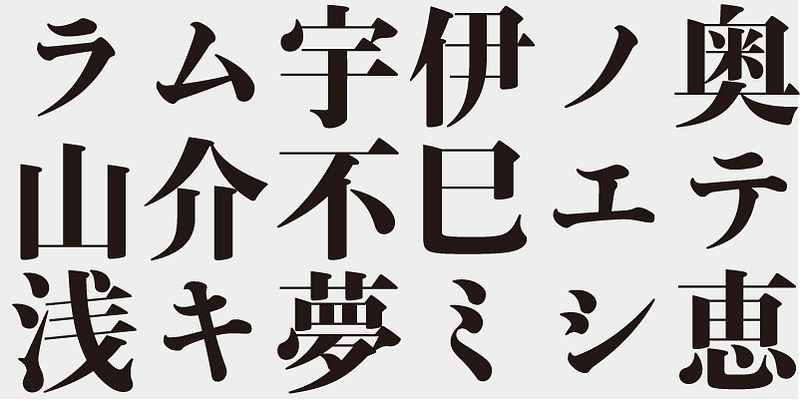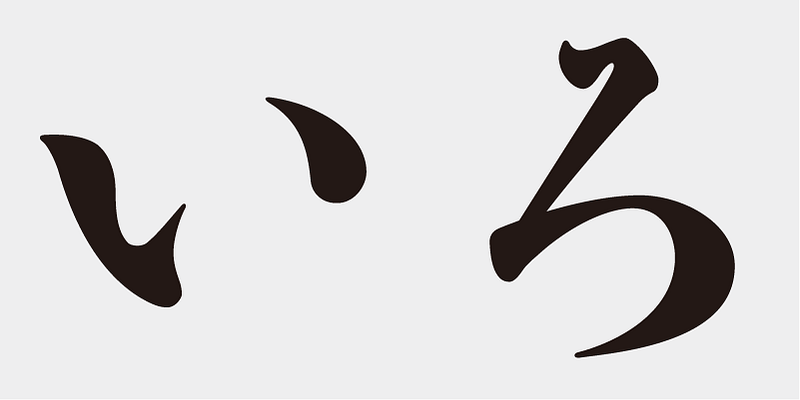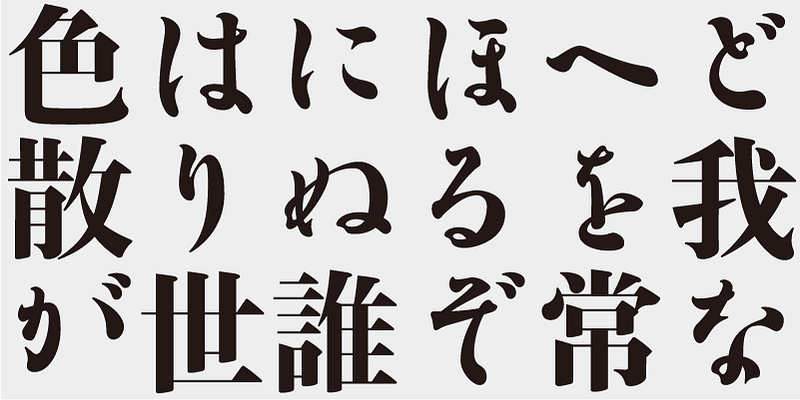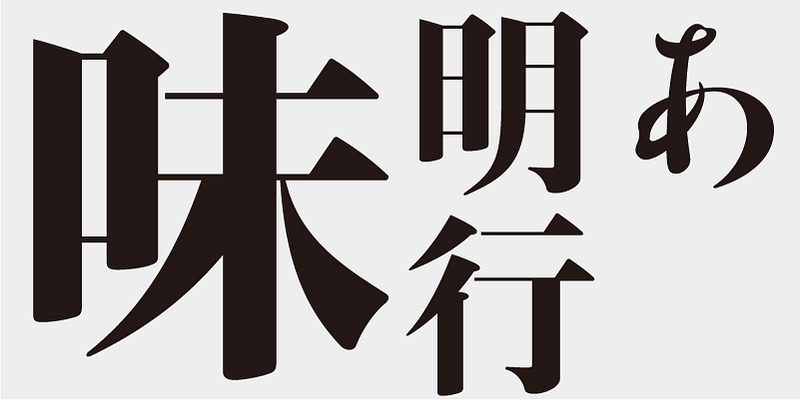
Although Ajimin has the flavor of hot metal type, it is not intended to be a revival, but a new typeface for display purposes. Like Bodoni, its vertical strokes are clear and heavy and its horizontal strokes are precise and thin. Its elements possess strength and stability.
Ajimin Modern’s elements are more sharply designed than those of Ajimin – the start and finish of vertical strokes are lowered for increased sharpness, and the horizontal strokes are cut vertically at the start and are thinner with a uniform width. Ajimin Modern is a sharp and elegant Mincho-style typeface.
This typeface is designed to be used in larger type sizes (for posters, for example), although it’s legible in smaller sizes. As the type size increases, the elegance of each stroke element becomes more visible.
A typeface based on the style of Fujiwara-no Yukinari, a writing master in the 10–11th century, was first released in 1984, as one of the Ajioka Shintaro Kana Series. I redesigned it for the first time in thirty years to create this Ajimin Modern Gyo/EB.
Fujiwara-no Yukinari was one of the “San-seki” writing masters in the Heian period (in the 8–12th Century). He contributed greatly to the establishment of the Japanese style “Shodo” calligraphy and the perfection of writing in kana characters. Yukinari started the “Sesonji-ryu” school of calligraphy, from which various schools (such as the Shouren-in-ryu, Awata-ryu and Oie-ryu schools) developed.
The Edo Shogunate adopted the style of the Oie-ryu school as its official handwriting style, it was taught at “Terakoya” schools for children, and it widely disseminated to the public. The Kantei-ryu style, used for Kabuki theaters, and the Yose-moji style, used for vaudeville theaters, were also derived from the Oie-ryu style. In the Meiji period (1868–1912), this style affected the typeface designs of the Tokyo Tshukiji Type Foundry. The Oie-ryu style can be said to be the origin of Japanese styles of writing and calligraphy.
Ajimin
Ajimin has the flavor of hot metal type and, like Bodoni, its vertical strokes are clear and heavy and its horizontal strokes are precise and thin. Its elements possess strength and stability. Ajimin is a unique Mincho-style display typeface. Ajimin Modern’s elements are more sharply designed, but that sharpness is balanced by the richness and elegance of the design. Ajimin’s biggest feature is its 10 kana variations, ranging from running-hand-like designs, to revivals of designs from the age of hot metal type, to modern style kana. These variations make Ajimin useful for a wide range of purposes.